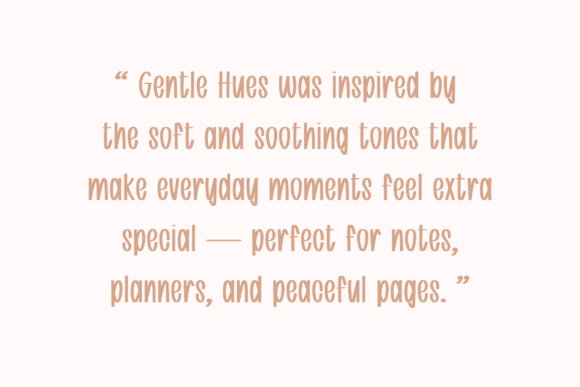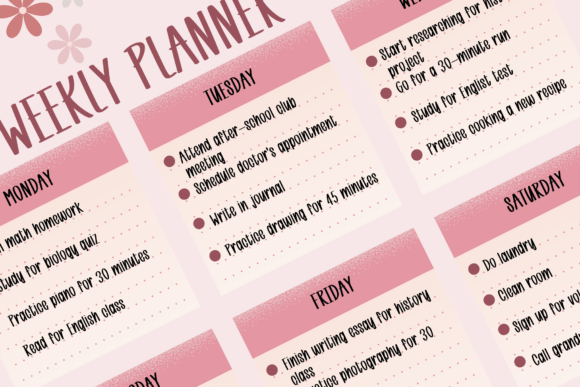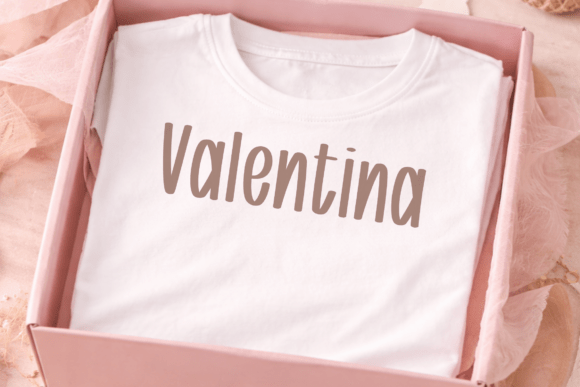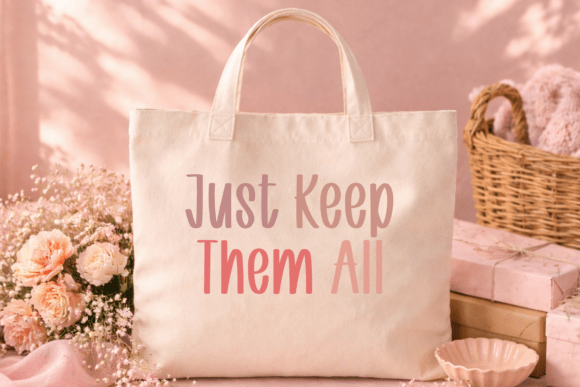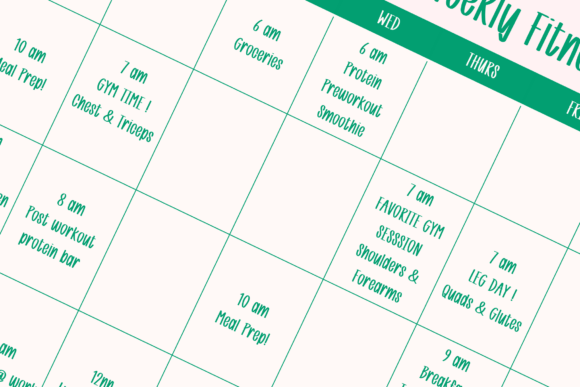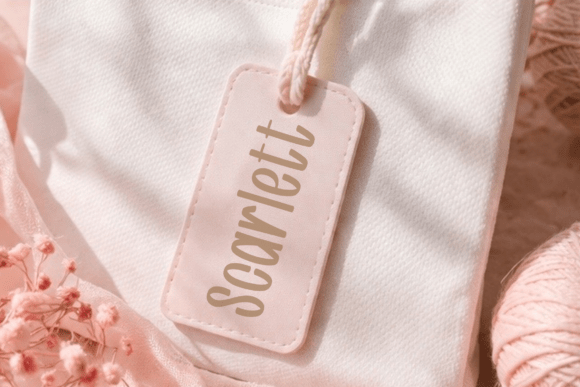
Gentle Hues Font: Elevate Your Designs with a Soft and Clean Handwritten Style
In the world of digital design, the right font can make all the difference in conveying your message and capturing your audience’s attention. For designers and crafters seeking a font that exudes calmness, organization, and a touch of personality, Gentle Hues is an exceptional choice. This soft and clean handwritten font is meticulously crafted to bring a sense of serenity and sophistication to your creative projects.
The Characteristics of Gentle Hues
Gentle Hues boasts smooth curves and simple letterforms, giving it a natural handwritten appearance that feels both approachable and elegant. The font’s design prioritizes clarity and readability, making it perfect for a wide range of applications. Whether you’re creating digital planners, journals, stickers, or social media content, Gentle Hues ensures that your text is easy to read and visually appealing.
Versatility Across Applications
One of the standout features of Gentle Hues is its versatility. This font performs beautifully across various platforms and projects, including:
- Digital Planners and Journals: Add a personal touch to your digital planners and journals with Gentle Hues. Its clean and organized appearance makes it ideal for layouts that require both functionality and aesthetic appeal.
- Cricut Projects: For crafters who love working with Cricut machines, Gentle Hues is a fantastic choice. Its clear and consistent strokes ensure that your cut-out letters and designs look professional and polished.
- Stickers: Whether you’re designing stickers for personal use or for clients, Gentle Hues offers a charming and legible style that’s sure to delight.
- Social Media Design: Enhance your social media posts and stories with Gentle Hues. Its friendly and approachable vibe makes it perfect for engaging with your audience.
Suitability for Note-Taking and Long-Form Writing
Gentle Hues is not just limited to short texts or headings; it’s also highly suitable for note-taking and long-form writing. The font’s neat and consistent strokes reduce eye strain and make reading extended passages a comfortable experience. This feature is particularly beneficial for digital note-takers and writers who spend a lot of time reading and writing on their devices.
Why Choose Gentle Hues?
There are several reasons why designers and crafters are gravitating towards Gentle Hues:
- Calm and Organized Feel: Gentle Hues brings a sense of calmness and organization to your designs, making it perfect for projects that aim to soothe or inspire.
- Excellent Clarity and Readability: The font’s careful design ensures that your text is always easy to read, regardless of the application.
- Everyday Usability: Gentle Hues is crafted for everyday use, making it a reliable choice for a wide range of projects.
- Aesthetic Appeal: Its soft and clean appearance adds a touch of elegance to any design, setting it apart from more traditional fonts.
Gentle Hues font is a versatile and aesthetically pleasing addition to any designer’s or crafter’s toolkit. Its unique blend of softness, clarity, and readability makes it an excellent choice for a variety of projects, from digital planners and journals to Cricut projects, stickers, and social media design. Whether you’re looking to add a personal touch to your creations or seeking a font that can handle long-form writing with ease, Gentle Hues is sure to exceed your expectations.
Embrace the calm and organized feel of Gentle Hues in your next project. Explore its capabilities and discover how this gentle, yet powerful font can elevate your designs to new heights.